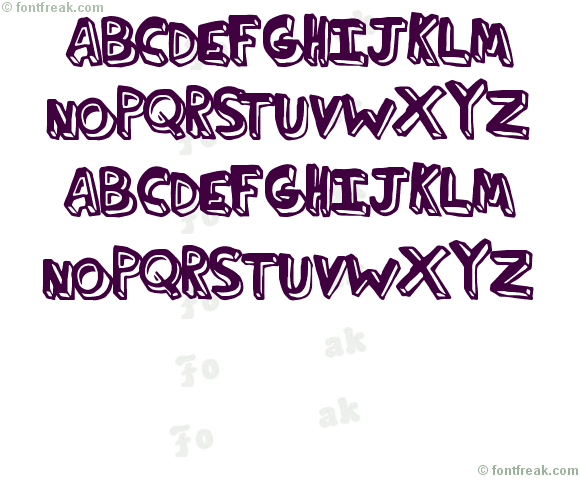
ThirdHand-solid
ThirdHand
About ThirdHand-solid
The ThirdHand-solid font by XEROGRAPHER FONTS is a distinctive display typeface that exudes a playful and informal aesthetic. Characterized by its chunky, bold strokes and a hand-drawn appearance, this font captures the essence of creativity and spontaneity. The irregularity of the letterforms adds a unique charm, making it stand out as a fun choice for various design projects. The stroke weight is consistent, providing a solid presence without excessive contrast, while the spacing maintains a balanced feel that enhances readability.
This font is perfect for a variety of creative applications. It shines in settings such as children's event invitations, where its whimsical style can evoke joy and excitement. Additionally, ThirdHand-solid is an excellent choice for restaurant menus that aim to convey a casual and welcoming atmosphere. Its playful nature also makes it suitable for movie posters, especially in genres like comedy or animation, where it can effectively attract attention. Furthermore, small business owners looking to brand their unique products can utilize this font in promotional materials or signage, ensuring that their message is both memorable and engaging.
What sets the ThirdHand-solid font apart is its ability to blend a casual, approachable style with a solid structure, making it an ideal choice for designs that require a touch of fun without sacrificing professionalism. For those interested in adding this unique typeface to their collection, a ThirdHand-solid font free download is readily available, inviting users to explore its creative potential.